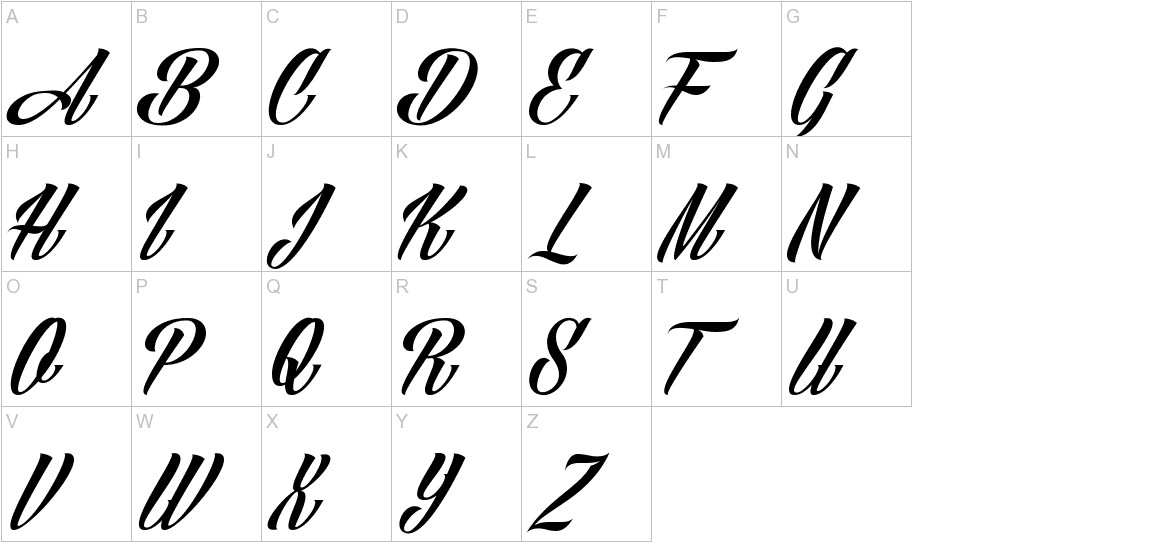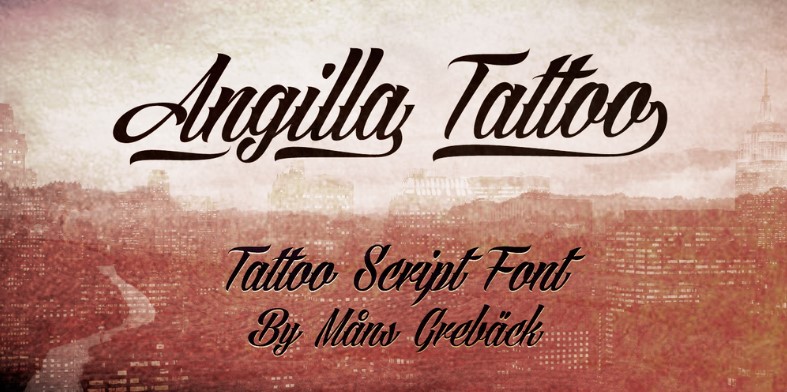
Angilla Tattoo Font
Angilla Tattoo Font is really popular for its script typeface. This typeface shares a lot of similarity with the mardian pro and fearless script font. This makes the content elegant. The content material cloth creator creates this font has taken the idea from the luckiest man font similarly, that new typeface has positioned on the font.
Normal with many professional designers, it is giving a pinnacle-notch like-minded search for precise operations. In this conduct, it is going to show one of the maximum precise typefaces. Angilla Tattoo Font Free This wonderful top-notch font has are available in a not unusual range at the detail of some of the characters. Having the paper layout like grobold font it has to function the uppercase, punctuation marks.